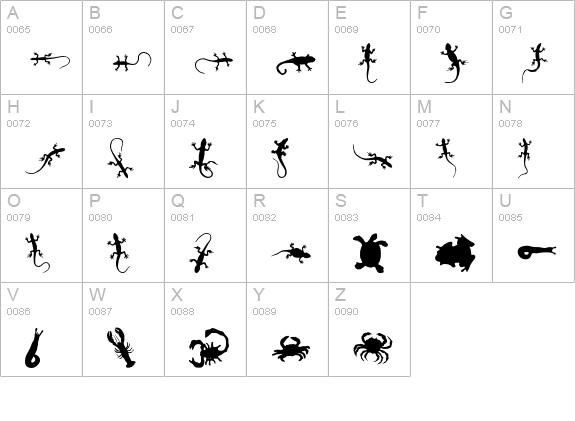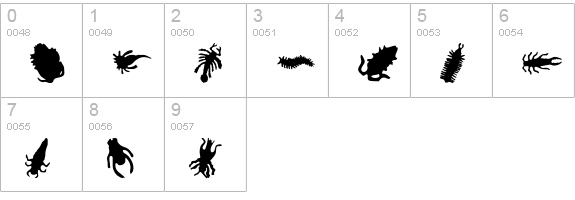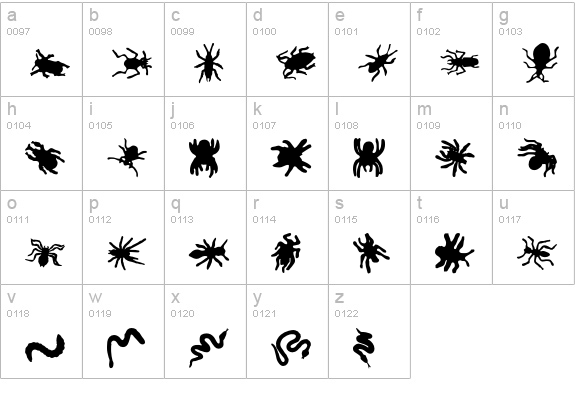
AnnCrawlers Font Details
AnnCrawlers font is a unique and creative typeface that embodies a sense of adventure and curiosity. Its intricate design features elegant curves and playful strokes that add a touch of whimsy to any project. The font is versatile and can be used for a wide range of design applications, from branding and advertising to social media graphics and packaging. What sets AnnCrawlers font apart is not only its eye-catching aesthetics but also the fact that it is freely available to download at FontsMarket.com. This means that designers, creatives, and enthusiasts alike can easily access and use this captivating font without any cost. Whether you're working on a personal project or a commercial campaign, AnnCrawlers font offers a fresh and engaging option to elevate your designs.